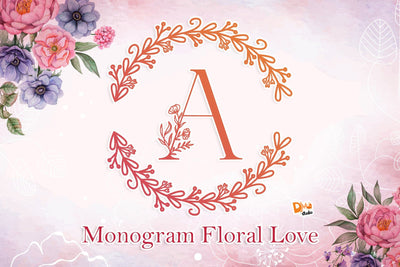
Monogram Floral Love
Monogram Floral Love Font
Monogram Floral Love Font is an elegant, lovely serif font decorated with hand drawn floral.
Monogram Floral Love works perfectly for your lovely designs in every lovely moments.
Comes in two styles, you can access them by using uppercase or lowercase key.
- Uppercase (Style 1) A-Z
- Lowercase (Style 2) a-z